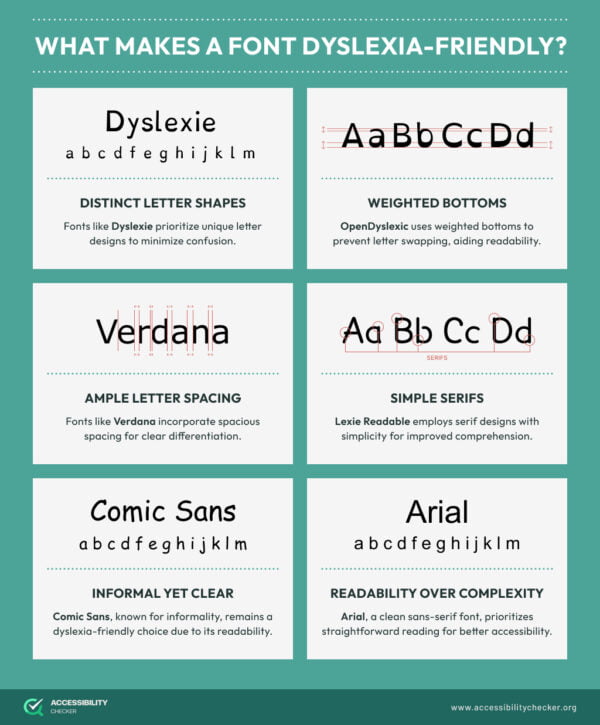
Font And Dyslexia . Opendyslexic is a typeface designed against some common symptoms of dyslexia. Dyslexie is a font that aims to overcome some of the problems that people with dyslexia can have when reading. Specialized fonts for students with dyslexia are gaining in popularity. Reading with dyslexia can be challenging, particularly when complicated fonts are involved. How font choice affects dyslexic readers. Due to the way their brains process visual information,. But they’re based on a key misconception, experts warn. If you like the way you are able to read this page, and. Find the best fonts for dyslexia, including standard choices like arial and special fonts created for those who have dyslexia. Some dyslexic readers may request a larger font. We've picked out 10 of the best.
Specialized fonts for students with dyslexia are gaining in popularity. Opendyslexic is a typeface designed against some common symptoms of dyslexia. Reading with dyslexia can be challenging, particularly when complicated fonts are involved. But they’re based on a key misconception, experts warn. Dyslexie is a font that aims to overcome some of the problems that people with dyslexia can have when reading. How font choice affects dyslexic readers. Due to the way their brains process visual information,. If you like the way you are able to read this page, and. Some dyslexic readers may request a larger font. Find the best fonts for dyslexia, including standard choices like arial and special fonts created for those who have dyslexia.
Dyslexic Reading Font What Dyslexia Is Like
Font And Dyslexia Due to the way their brains process visual information,. Reading with dyslexia can be challenging, particularly when complicated fonts are involved. Dyslexie is a font that aims to overcome some of the problems that people with dyslexia can have when reading. Some dyslexic readers may request a larger font. But they’re based on a key misconception, experts warn. Specialized fonts for students with dyslexia are gaining in popularity. We've picked out 10 of the best. How font choice affects dyslexic readers. If you like the way you are able to read this page, and. Due to the way their brains process visual information,. Find the best fonts for dyslexia, including standard choices like arial and special fonts created for those who have dyslexia. Opendyslexic is a typeface designed against some common symptoms of dyslexia.
Dyslexia Font POPSUGAR Tech Font And Dyslexia We've picked out 10 of the best. Specialized fonts for students with dyslexia are gaining in popularity. If you like the way you are able to read this page, and. Some dyslexic readers may request a larger font. Reading with dyslexia can be challenging, particularly when complicated fonts are involved. Find the best fonts for dyslexia, including standard choices like. Font And Dyslexia.
Best Fonts for Dyslexia and Why They Work Font And Dyslexia Opendyslexic is a typeface designed against some common symptoms of dyslexia. Some dyslexic readers may request a larger font. Dyslexie is a font that aims to overcome some of the problems that people with dyslexia can have when reading. How font choice affects dyslexic readers. But they’re based on a key misconception, experts warn. Specialized fonts for students with dyslexia. Font And Dyslexia.
Open Dyslexic Font Abbie Gonzalez FontSpace Font And Dyslexia Specialized fonts for students with dyslexia are gaining in popularity. How font choice affects dyslexic readers. But they’re based on a key misconception, experts warn. Some dyslexic readers may request a larger font. Dyslexie is a font that aims to overcome some of the problems that people with dyslexia can have when reading. Find the best fonts for dyslexia, including. Font And Dyslexia.
New Dyslexia Friendly Font — Dyslexic Logic Font And Dyslexia How font choice affects dyslexic readers. Opendyslexic is a typeface designed against some common symptoms of dyslexia. Find the best fonts for dyslexia, including standard choices like arial and special fonts created for those who have dyslexia. But they’re based on a key misconception, experts warn. We've picked out 10 of the best. Specialized fonts for students with dyslexia are. Font And Dyslexia.
Dyslexie Font Better reading for everybody Font And Dyslexia Due to the way their brains process visual information,. Find the best fonts for dyslexia, including standard choices like arial and special fonts created for those who have dyslexia. Specialized fonts for students with dyslexia are gaining in popularity. How font choice affects dyslexic readers. Dyslexie is a font that aims to overcome some of the problems that people with. Font And Dyslexia.
Dyslexia Font Font And Dyslexia Find the best fonts for dyslexia, including standard choices like arial and special fonts created for those who have dyslexia. But they’re based on a key misconception, experts warn. How font choice affects dyslexic readers. If you like the way you are able to read this page, and. Specialized fonts for students with dyslexia are gaining in popularity. Due to. Font And Dyslexia.
Dyslexia Friendly Fonts The Top 10 Fonts for Dyslexia Font And Dyslexia How font choice affects dyslexic readers. We've picked out 10 of the best. If you like the way you are able to read this page, and. But they’re based on a key misconception, experts warn. Specialized fonts for students with dyslexia are gaining in popularity. Find the best fonts for dyslexia, including standard choices like arial and special fonts created. Font And Dyslexia.
How Choosing the Best Font for Dyslexia Can Improve Learning A Closer Font And Dyslexia Reading with dyslexia can be challenging, particularly when complicated fonts are involved. But they’re based on a key misconception, experts warn. Opendyslexic is a typeface designed against some common symptoms of dyslexia. Due to the way their brains process visual information,. We've picked out 10 of the best. Specialized fonts for students with dyslexia are gaining in popularity. Find the. Font And Dyslexia.
Reading Fluency and Comprehension Tips for Dyslexia Font And Dyslexia Reading with dyslexia can be challenging, particularly when complicated fonts are involved. We've picked out 10 of the best. If you like the way you are able to read this page, and. How font choice affects dyslexic readers. Some dyslexic readers may request a larger font. But they’re based on a key misconception, experts warn. Specialized fonts for students with. Font And Dyslexia.